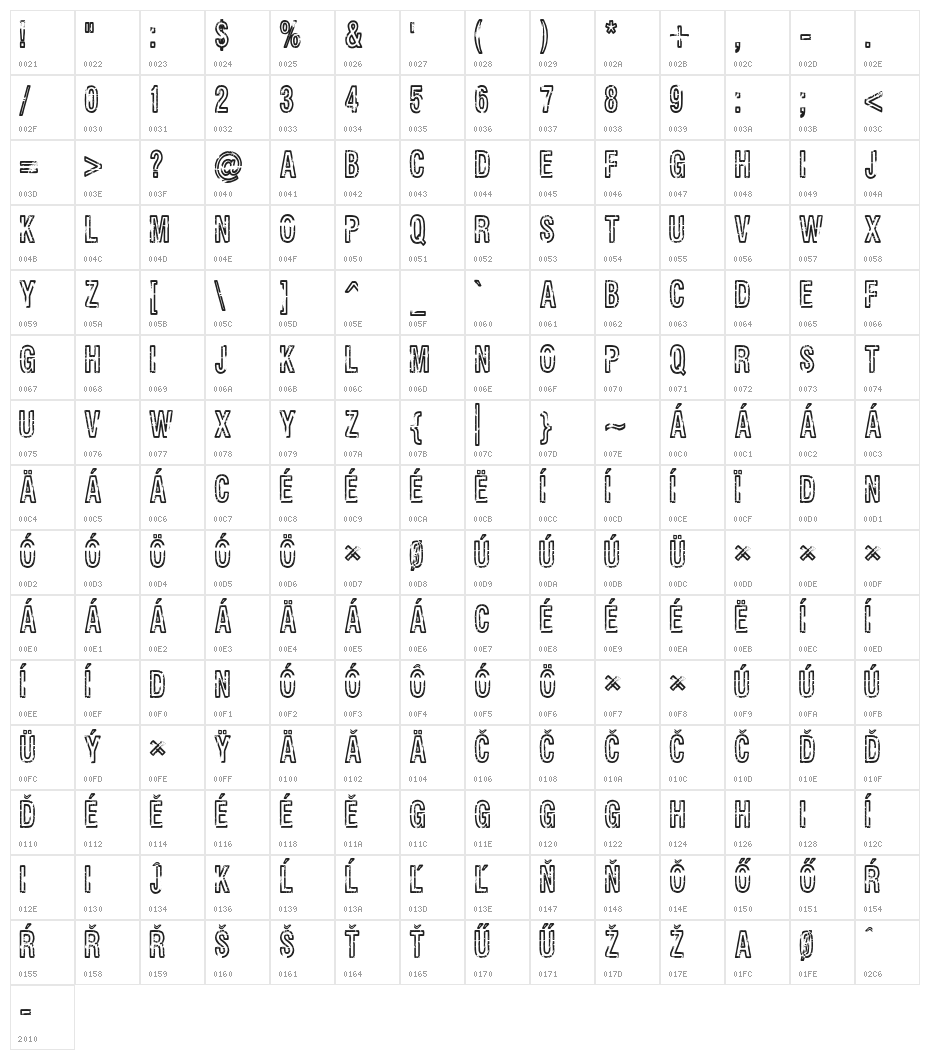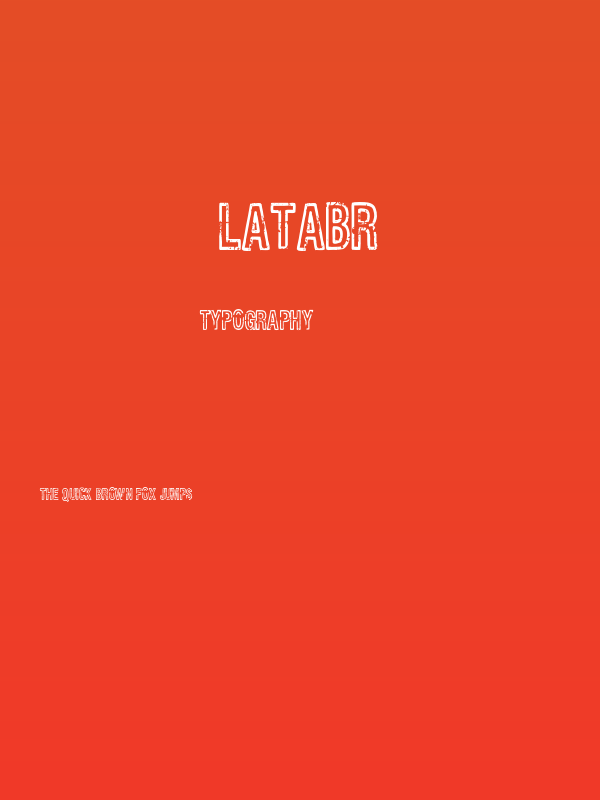
Latabr Font
Latabr Description
This font features a bold, distressed style with a textured appearance, giving it a rugged and vintage feel. The characters are uppercase and have a consistent height, with a slightly condensed width. The distressed effect is prominent, creating a worn-out look that adds character and uniqueness. The font includes a full set of uppercase letters, numbers, and a variety of special characters, making it versatile for different design needs. The bold strokes and rough edges make it stand out, suitable for projects that require a strong visual impact.
| Proposed Projects | Ideal for posters, album covers, branding, and any design that requires a vintage or grunge aesthetic. |